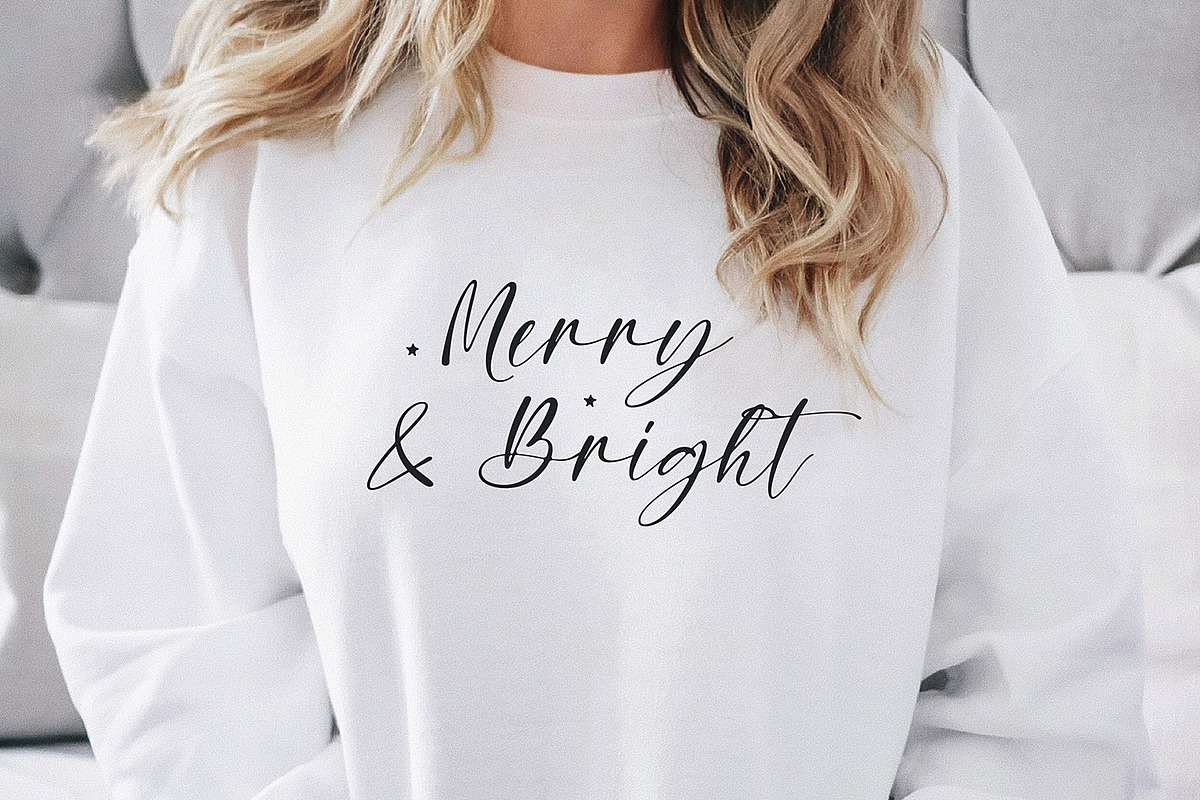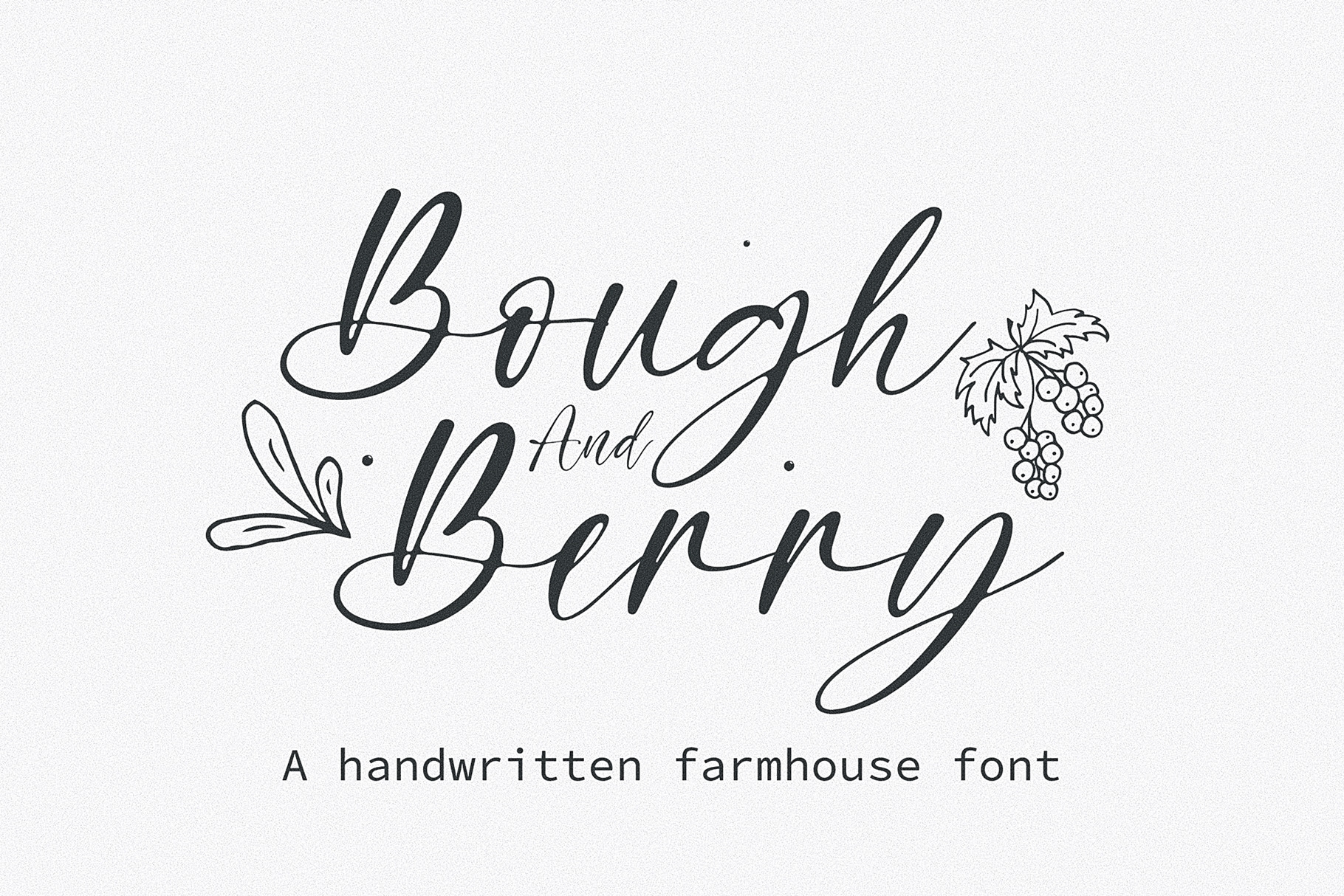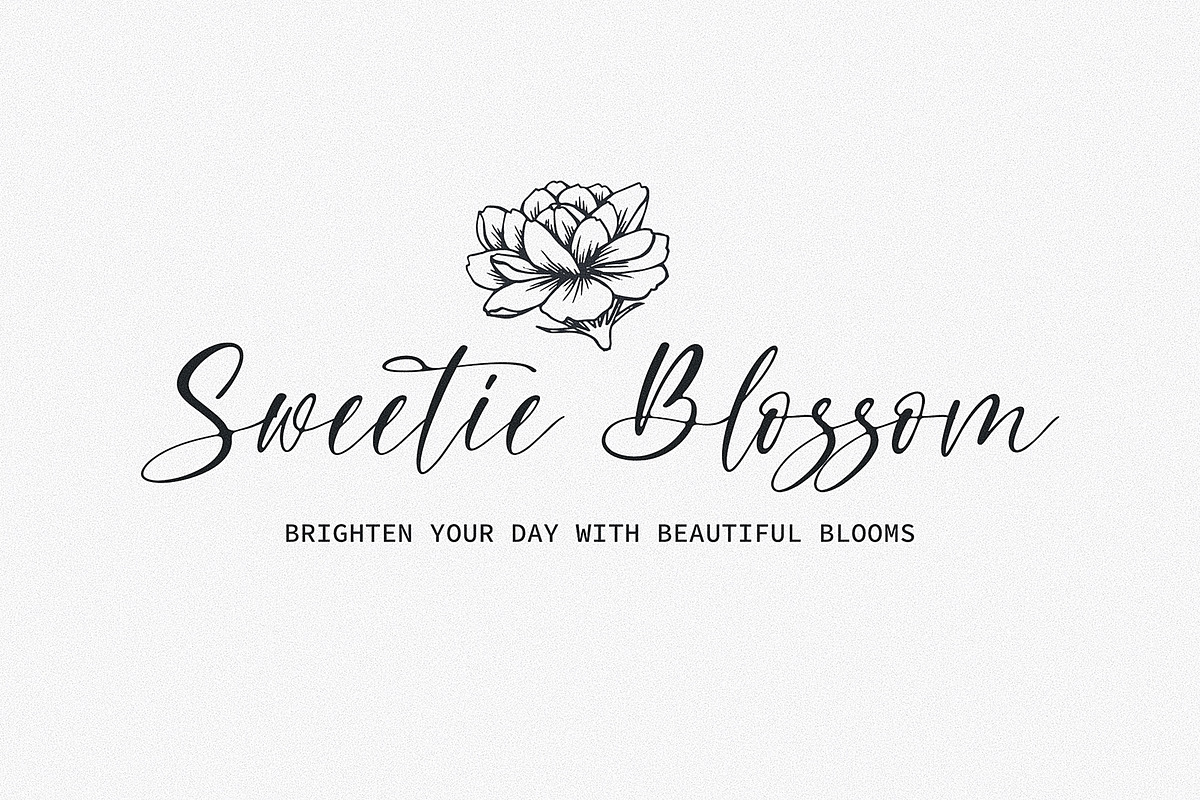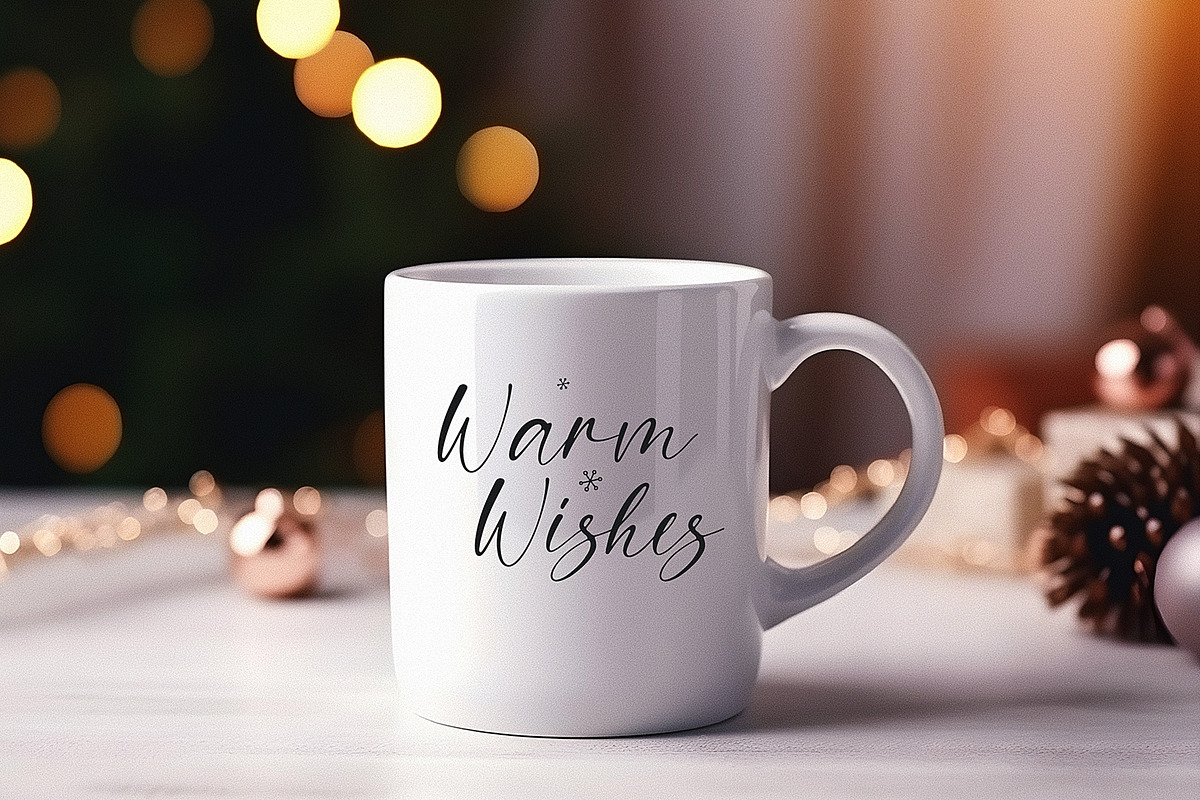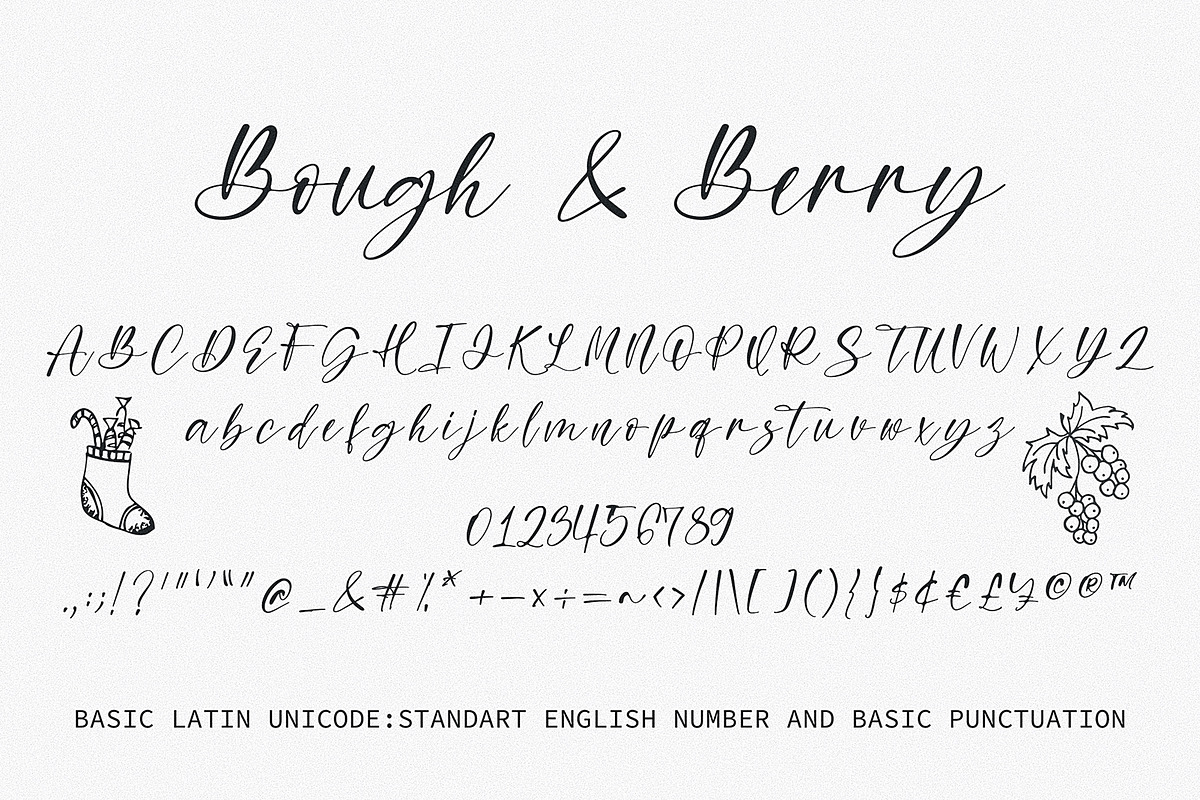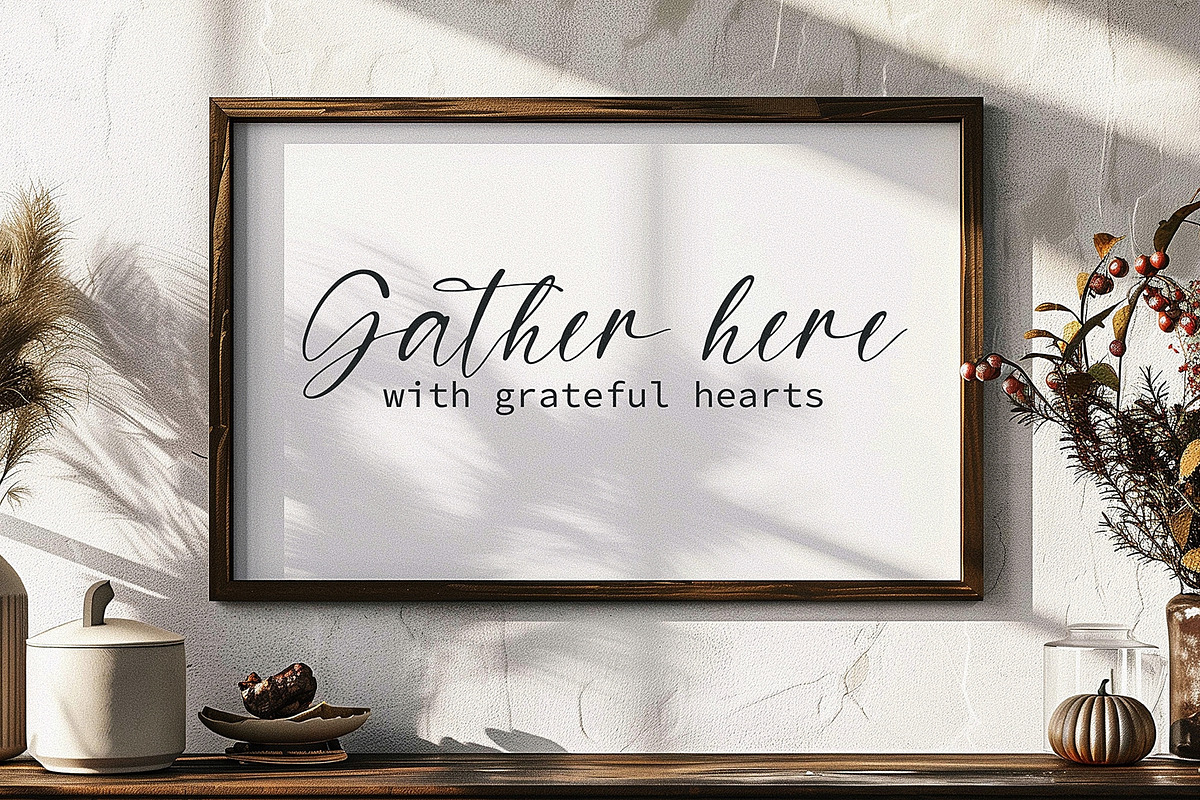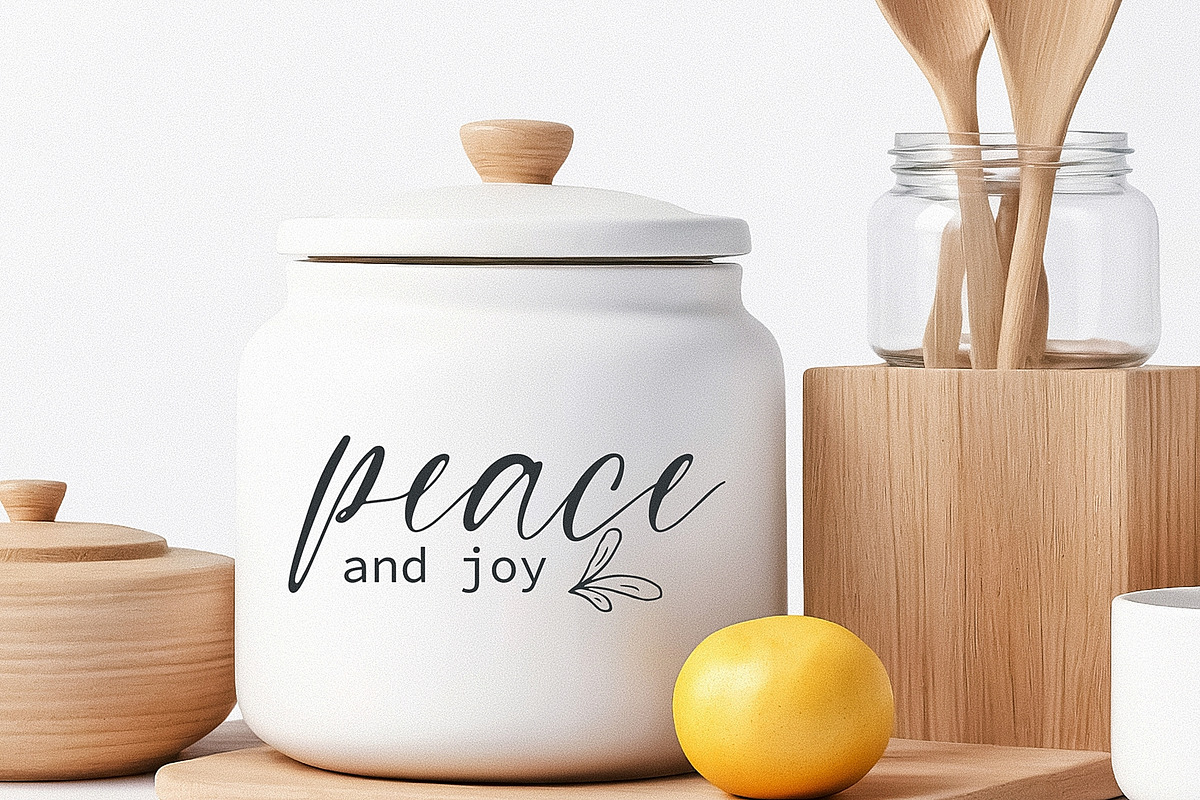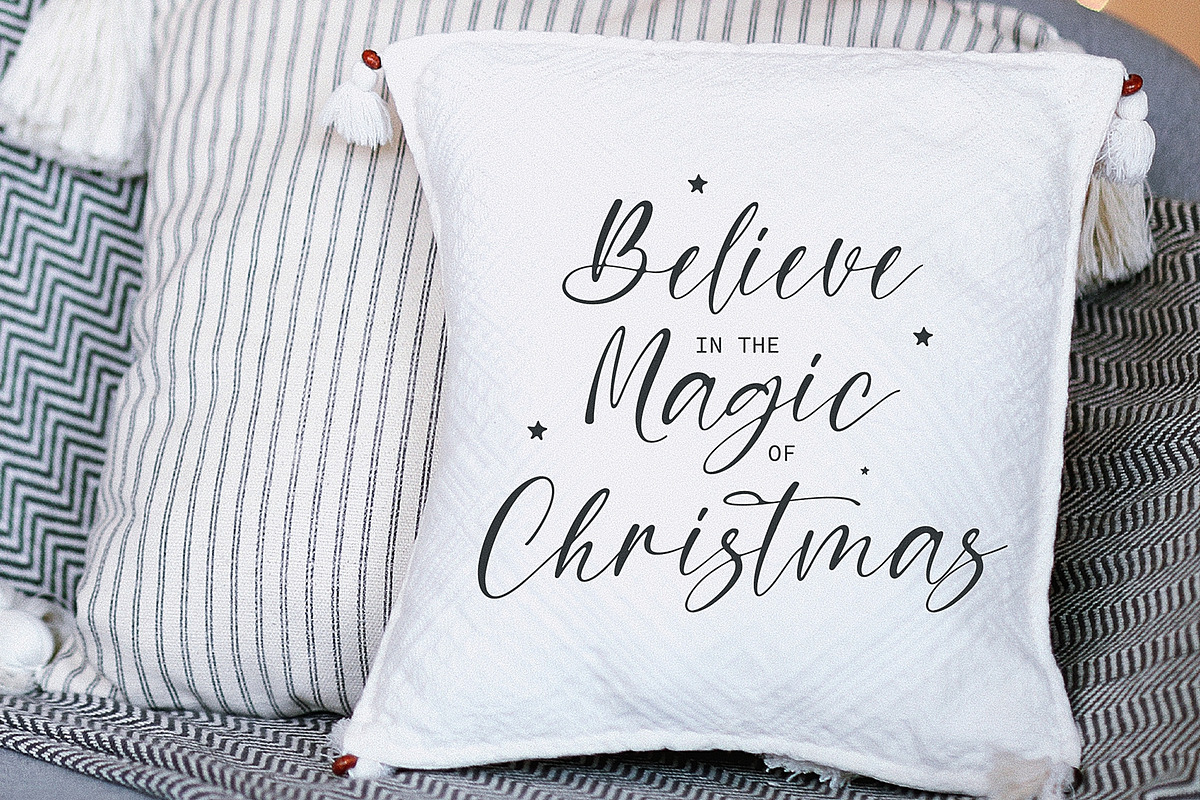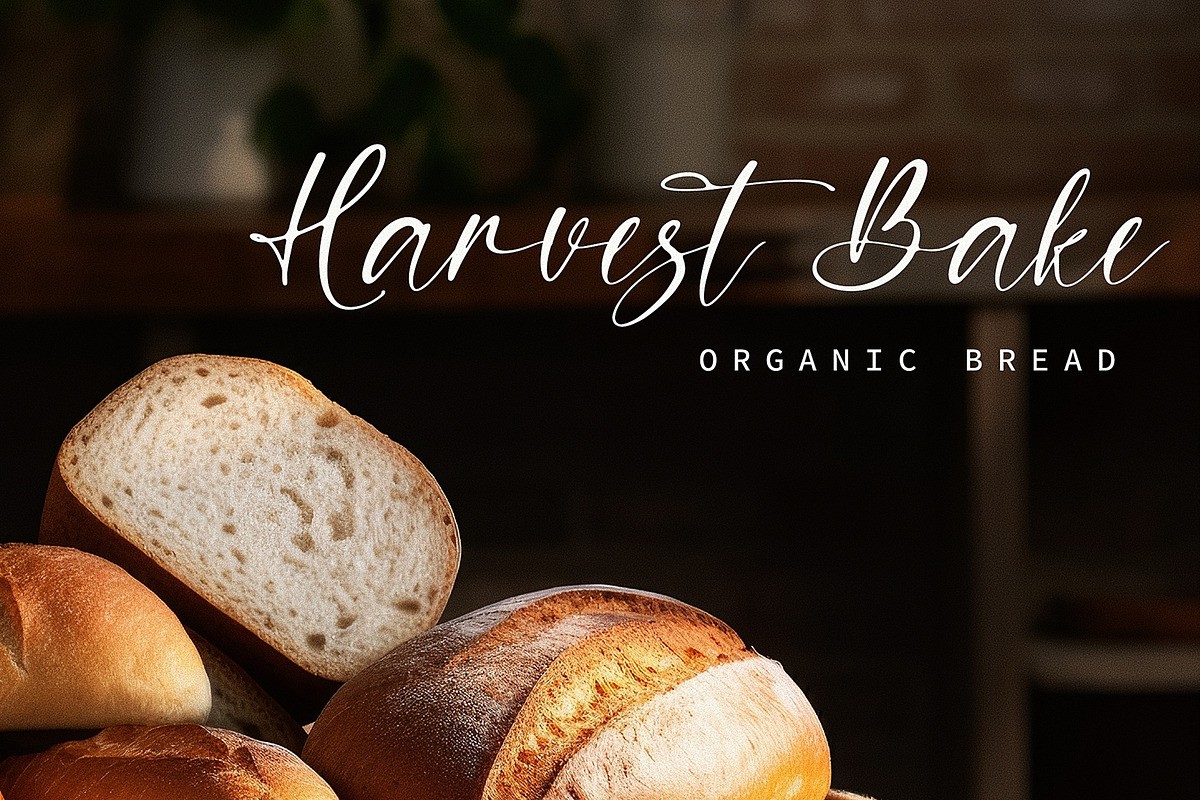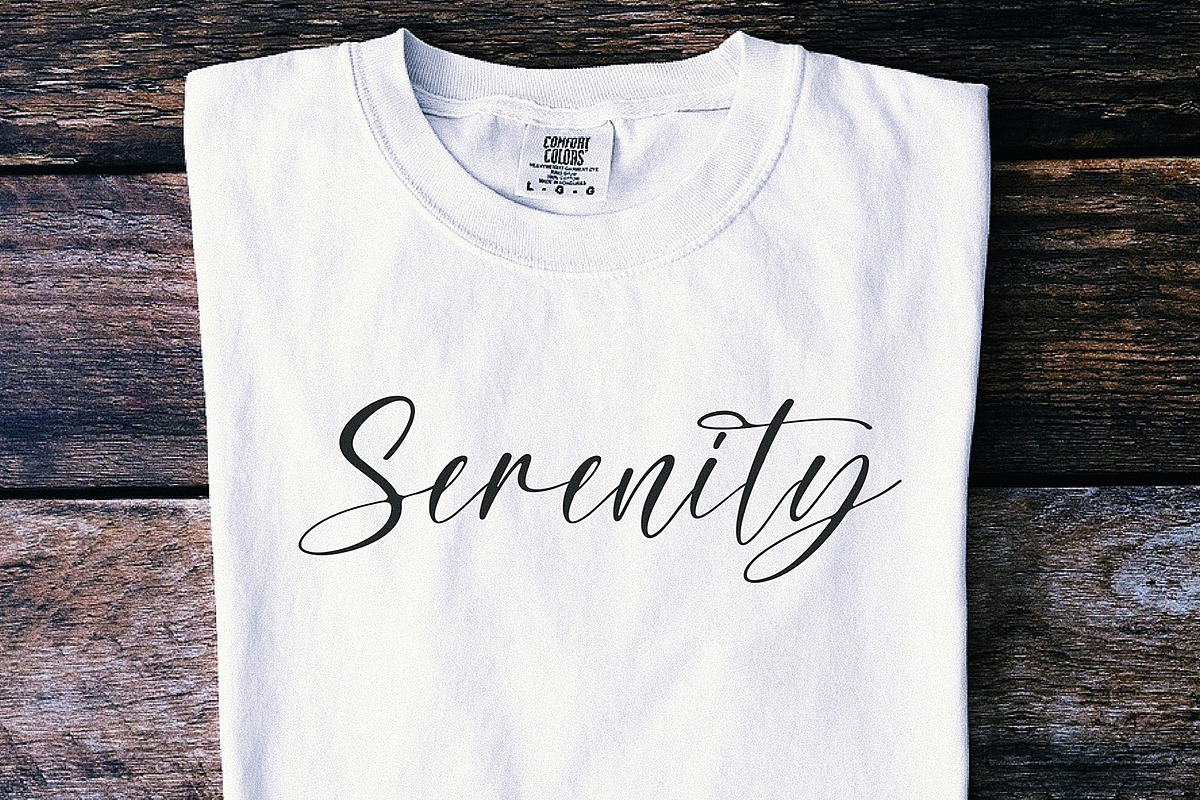
Bough and Berry - Handwritten font
Bough and Berry is a cool, friendly, and informal handwritten font that can be used for all chalkboard quotes or teaching material! Its authentic look and feel will add a personal and realistic touch to your designs